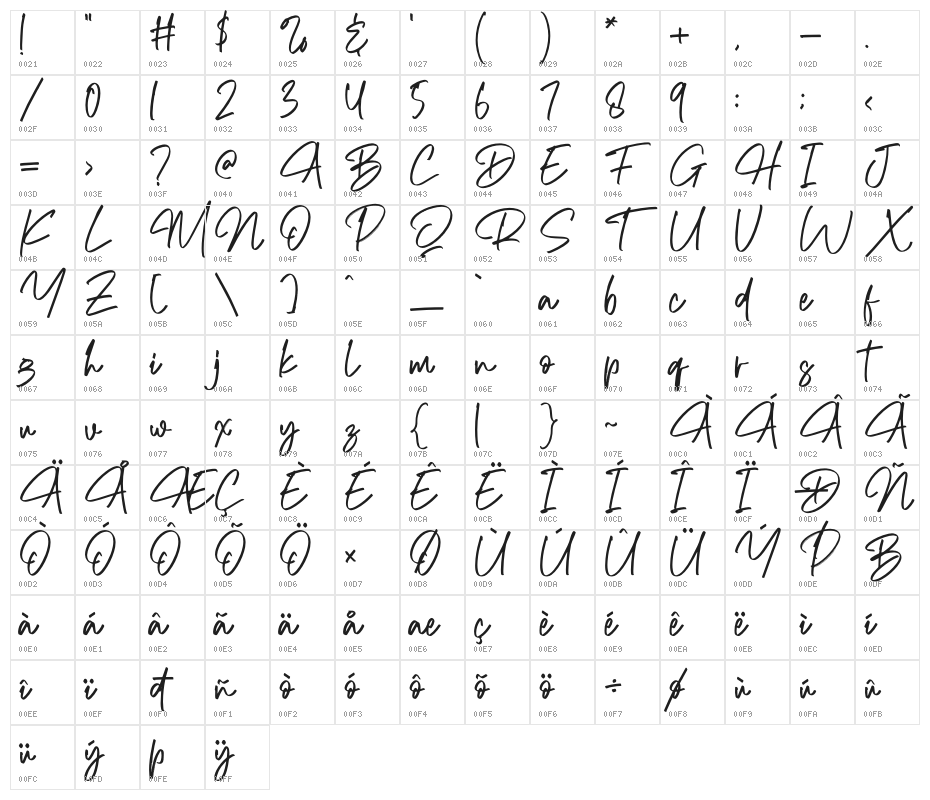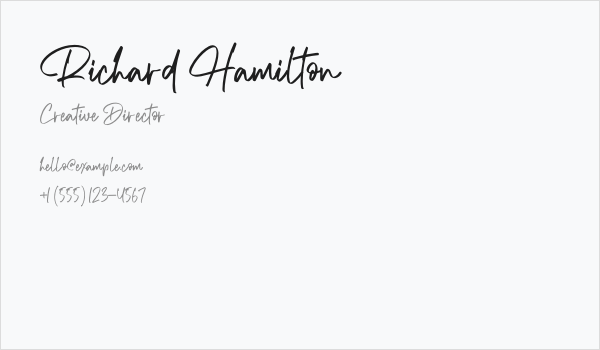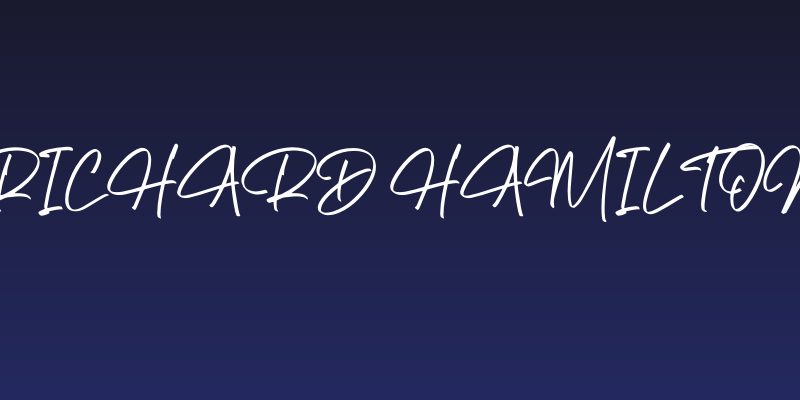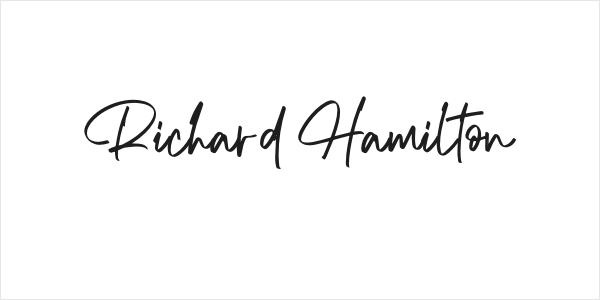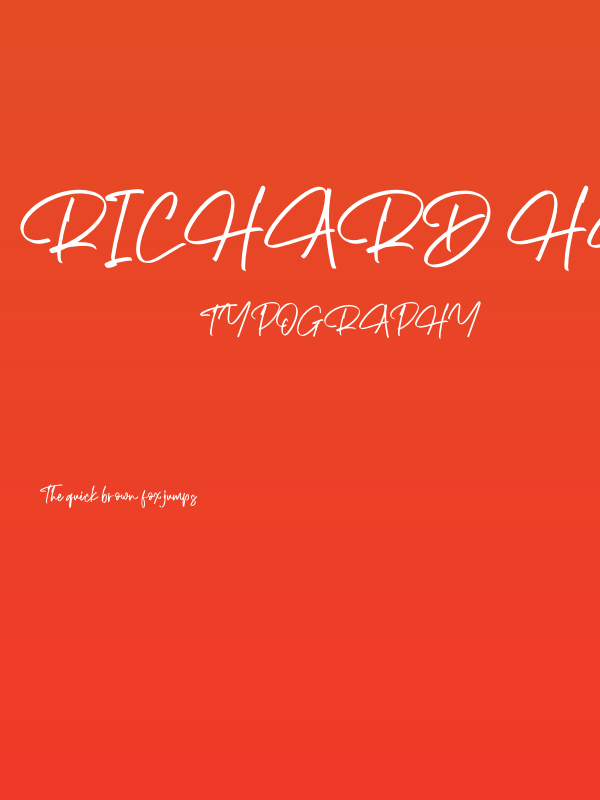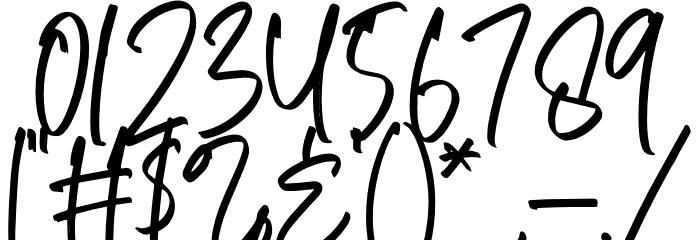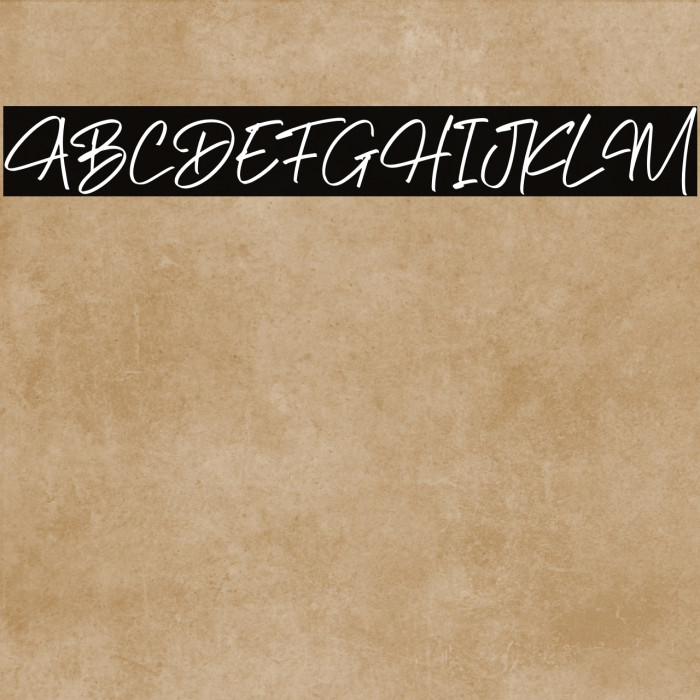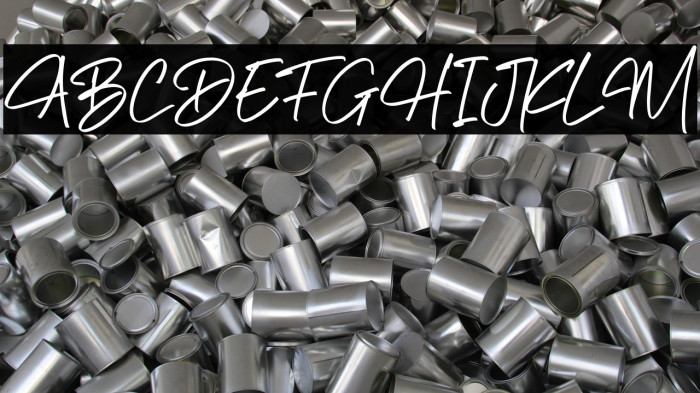
Richard Hamilton Font
Richard Hamilton Description
This font features a dynamic and expressive handwritten style with a fluid and cursive appearance. The uppercase letters are elegantly slanted, with smooth curves and a consistent flow that mimics natural handwriting. The lowercase letters maintain a similar fluidity, with some characters extending below the baseline, adding to the font's organic feel. The numerals are bold and slightly larger, ensuring readability while maintaining the handwritten aesthetic. Special characters are integrated seamlessly, complementing the overall style. This font exudes a personal and artistic touch, making it ideal for projects that require a human element.
| Proposed Projects | Ideal for personal branding, invitations, greeting cards, and artistic projects that require a personal touch. |